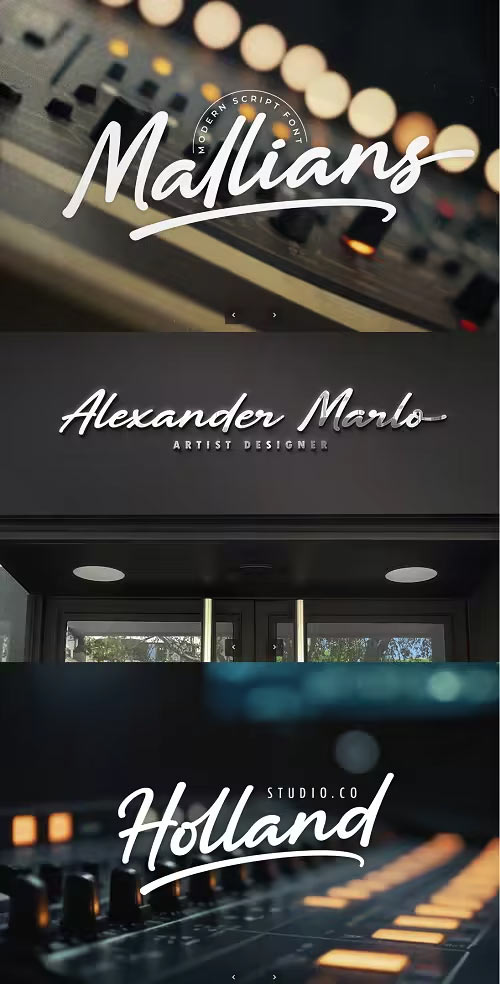
Mallians - Modern Script Font 8LE3X4J
Mallians is a modern bold script font with natural feel. This font will make your designs look stand out, exclusive and authentic. This font offers opentype features such as contextual alternates, end alternates, ligatures and underline sets. It offers support for all English characters, some characters in multiple languages and standard punctuation marks are included too. Mallians is designed specifically for logotype design, typhography, branding and manymore.